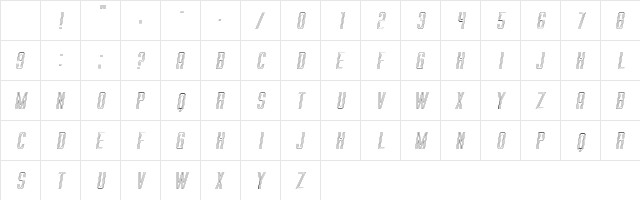
Trio is a composed and adaptable typeface that performs quietly and consistently across a wide range of design contexts. The slanted form adds forward momentum and visual energy.
Pro Tip: Use Trio for emphasis, pull quotes, and subheadings where its slanted energy can add rhythm to the layout.